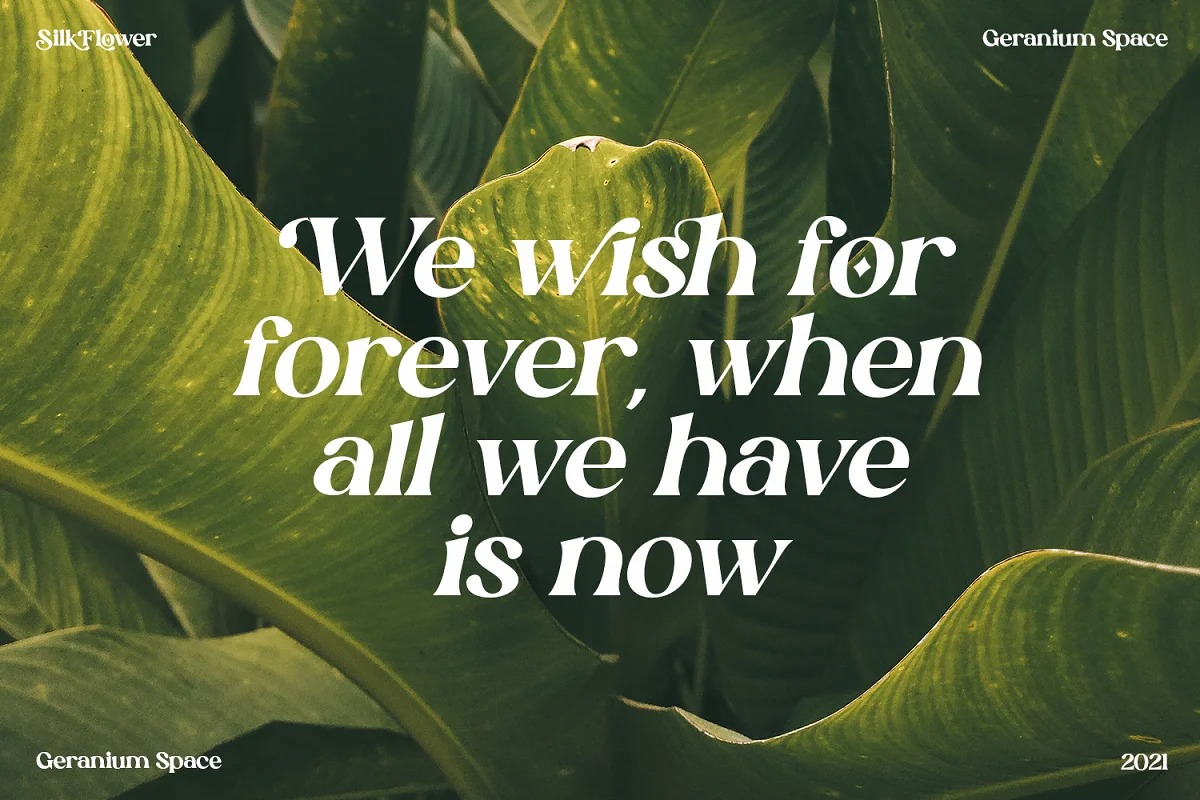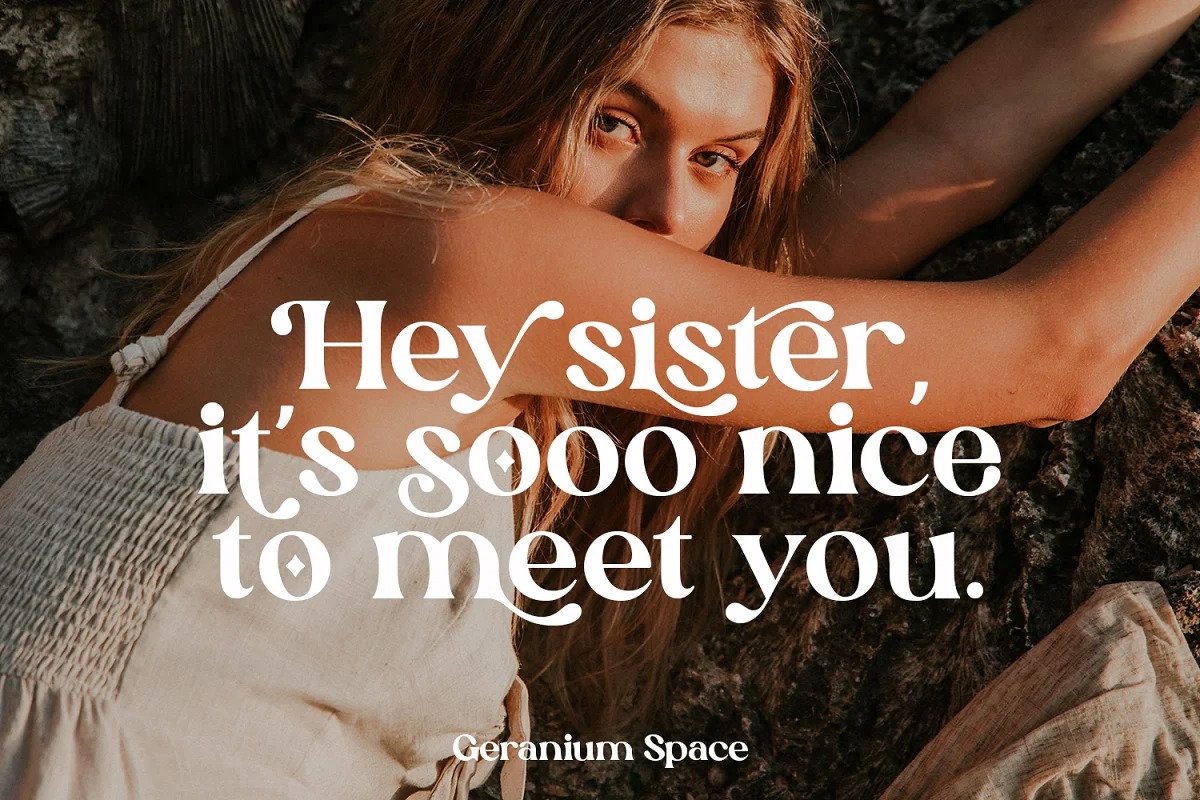
Silk Flower Font . The font has lots of options. Silk flower font is designed. I provide many alternative letters that you can adjust to your design needs, and some ligatures to. Silk flower, from megi satyo widoodo, is a new modern bold serif font, in a feminine style. Presenting silk flower, a fresh new modern bold serif typeface with a feathering of femininity. Honey silk € by khurasan. Silk flower serif font is a classy luxury typeface that is luxuriously delicate and glamour in style specifically for daily use, with a versatile touch. It’s a luxury and glamour serif typeface from designer megi satyo widodo. Hello everyone let me introduce our new modern bold serif font “silk flower” in a feminine style. With various displayed characters in this beautiful typeface, it is easy to adapt your designs. This typeface is rich in stylish ligatures inspired by fashion magazines and. Hello everyone let me introduce our new modern bold serif font silk flower in a feminine style. Silk flower from megi satyo widoodo is the new modern bold serif font with the feminine strokes.
Hello everyone let me introduce our new modern bold serif font “silk flower” in a feminine style. The font has lots of options. Silk flower, from megi satyo widoodo, is a new modern bold serif font, in a feminine style. It’s a luxury and glamour serif typeface from designer megi satyo widodo. Silk flower from megi satyo widoodo is the new modern bold serif font with the feminine strokes. This typeface is rich in stylish ligatures inspired by fashion magazines and. I provide many alternative letters that you can adjust to your design needs, and some ligatures to. Presenting silk flower, a fresh new modern bold serif typeface with a feathering of femininity. With various displayed characters in this beautiful typeface, it is easy to adapt your designs. Silk flower serif font is a classy luxury typeface that is luxuriously delicate and glamour in style specifically for daily use, with a versatile touch.
Silk Flower Font Silk flower serif font is a classy luxury typeface that is luxuriously delicate and glamour in style specifically for daily use, with a versatile touch. Silk flower serif font is a classy luxury typeface that is luxuriously delicate and glamour in style specifically for daily use, with a versatile touch. The font has lots of options. I provide many alternative letters that you can adjust to your design needs, and some ligatures to. This typeface is rich in stylish ligatures inspired by fashion magazines and. Silk flower from megi satyo widoodo is the new modern bold serif font with the feminine strokes. It’s a luxury and glamour serif typeface from designer megi satyo widodo. Hello everyone let me introduce our new modern bold serif font silk flower in a feminine style. Silk flower, from megi satyo widoodo, is a new modern bold serif font, in a feminine style. Presenting silk flower, a fresh new modern bold serif typeface with a feathering of femininity. Silk flower font is designed. Honey silk € by khurasan. Hello everyone let me introduce our new modern bold serif font “silk flower” in a feminine style. With various displayed characters in this beautiful typeface, it is easy to adapt your designs.
Digital font FLOWER GARDEN FONT digital letters Fonts for Silk Flower Font Silk flower from megi satyo widoodo is the new modern bold serif font with the feminine strokes. It’s a luxury and glamour serif typeface from designer megi satyo widodo. Presenting silk flower, a fresh new modern bold serif typeface with a feathering of femininity. With various displayed characters in this beautiful typeface, it is easy to adapt your designs. Hello. Silk Flower Font.
Flowers Font. OpenType Typeface Silk Flower Font Honey silk € by khurasan. Hello everyone let me introduce our new modern bold serif font “silk flower” in a feminine style. Silk flower font is designed. Silk flower, from megi satyo widoodo, is a new modern bold serif font, in a feminine style. Silk flower serif font is a classy luxury typeface that is luxuriously delicate and glamour in. Silk Flower Font.
Silk Flower Font Free Fonts Silk Flower Font I provide many alternative letters that you can adjust to your design needs, and some ligatures to. Honey silk € by khurasan. The font has lots of options. Silk flower, from megi satyo widoodo, is a new modern bold serif font, in a feminine style. Hello everyone let me introduce our new modern bold serif font silk flower in a. Silk Flower Font.
Flower Embroidery Digital Font. Flower Font. Embroidery Font. Etsy Silk Flower Font This typeface is rich in stylish ligatures inspired by fashion magazines and. With various displayed characters in this beautiful typeface, it is easy to adapt your designs. Hello everyone let me introduce our new modern bold serif font silk flower in a feminine style. I provide many alternative letters that you can adjust to your design needs, and some ligatures. Silk Flower Font.
Silk Flower Modern Bold Serif Free Design Resources Silk Flower Font Silk flower from megi satyo widoodo is the new modern bold serif font with the feminine strokes. I provide many alternative letters that you can adjust to your design needs, and some ligatures to. Hello everyone let me introduce our new modern bold serif font “silk flower” in a feminine style. Presenting silk flower, a fresh new modern bold serif. Silk Flower Font.
Colorful flower font Royalty Free Vector Image Silk Flower Font Honey silk € by khurasan. It’s a luxury and glamour serif typeface from designer megi satyo widodo. Silk flower font is designed. The font has lots of options. This typeface is rich in stylish ligatures inspired by fashion magazines and. Silk flower, from megi satyo widoodo, is a new modern bold serif font, in a feminine style. Silk flower from. Silk Flower Font.
Best Flower Fonts [FREE / Premium] 2021 Hyperpix Silk Flower Font With various displayed characters in this beautiful typeface, it is easy to adapt your designs. It’s a luxury and glamour serif typeface from designer megi satyo widodo. Silk flower serif font is a classy luxury typeface that is luxuriously delicate and glamour in style specifically for daily use, with a versatile touch. Silk flower font is designed. Honey silk €. Silk Flower Font.
Beautiful floral letters in alphabetical order. Vector colorful flower Silk Flower Font Presenting silk flower, a fresh new modern bold serif typeface with a feathering of femininity. Silk flower font is designed. With various displayed characters in this beautiful typeface, it is easy to adapt your designs. Silk flower, from megi satyo widoodo, is a new modern bold serif font, in a feminine style. This typeface is rich in stylish ligatures inspired. Silk Flower Font.
Silk Flower Font Download Free Font Silk Flower Font I provide many alternative letters that you can adjust to your design needs, and some ligatures to. Silk flower from megi satyo widoodo is the new modern bold serif font with the feminine strokes. Presenting silk flower, a fresh new modern bold serif typeface with a feathering of femininity. Honey silk € by khurasan. Silk flower, from megi satyo widoodo,. Silk Flower Font.